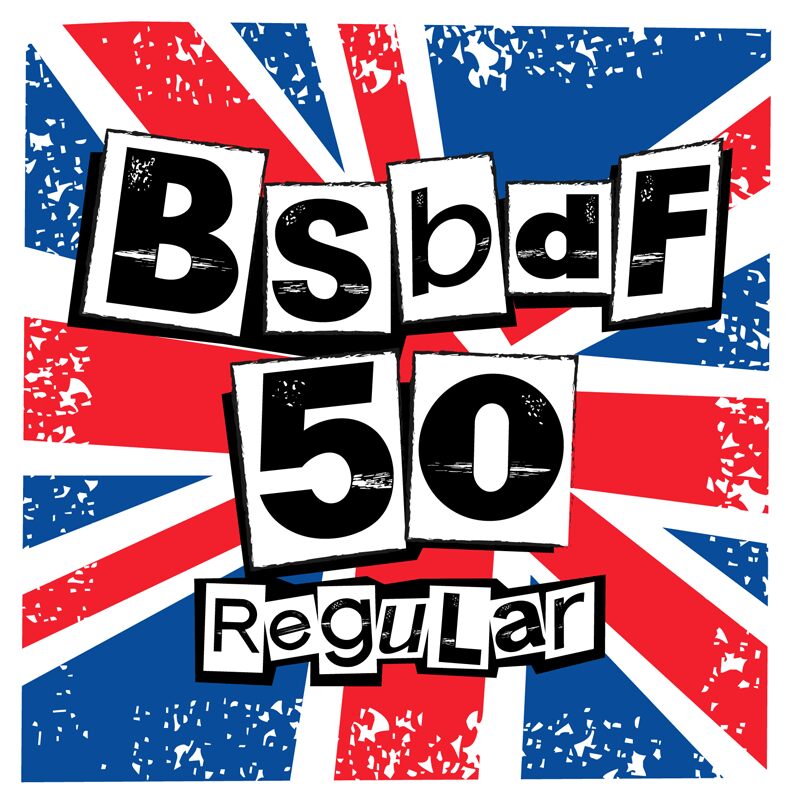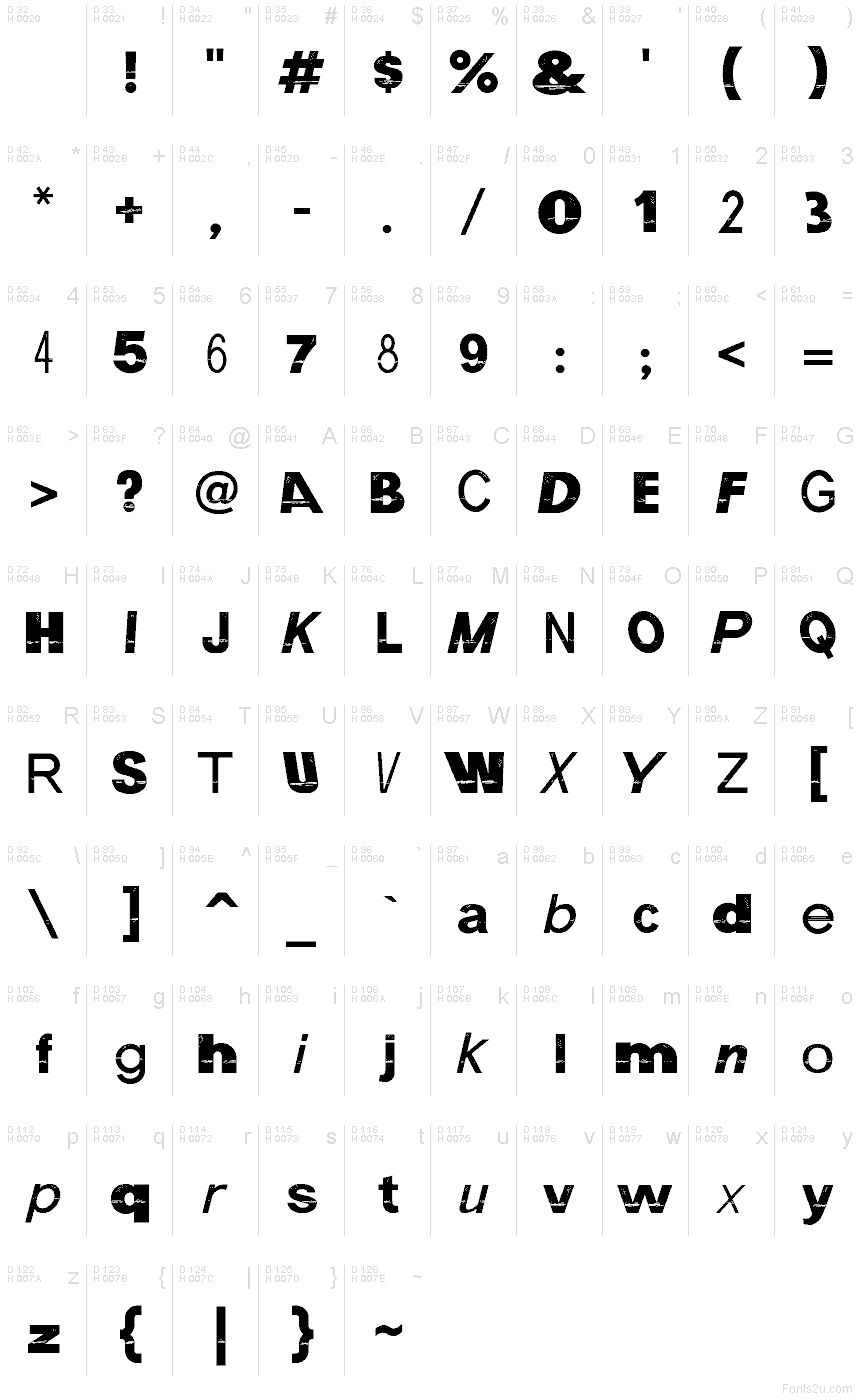
BSB DF 50 font by Galdino Otten Fonts is a free eroded display font. Its defining move is that rough, horizontal scrape that cuts through heavy, forward-leaning letters-like paint scuffed by speed. The grainy abrasion adds grit without drowning the shapes, so headlines stay loud and legible while feeling road-worn, kinetic, and a little dangerous.
Using BSB DF 50 brings instant texture to concert posters, extreme-sports promos, game covers, streetwear logos, dystopian book jackets, automotive signage, and punchy YouTube thumbnails. The consistent “scar line” creates a visual rhythm that ties a layout together and pushes the eye across the page. Pair this free font with a clean, untextured grotesk for body copy, and scale BSB DF 50 big to let the distressed detail breathe.